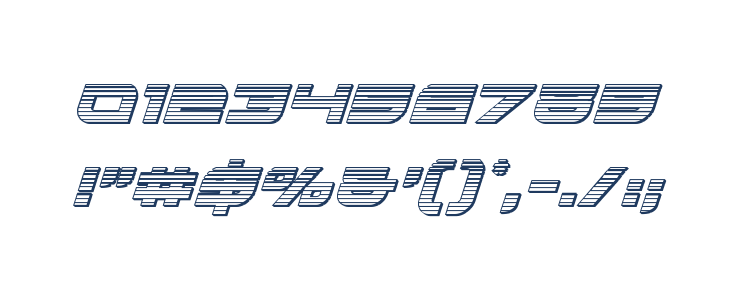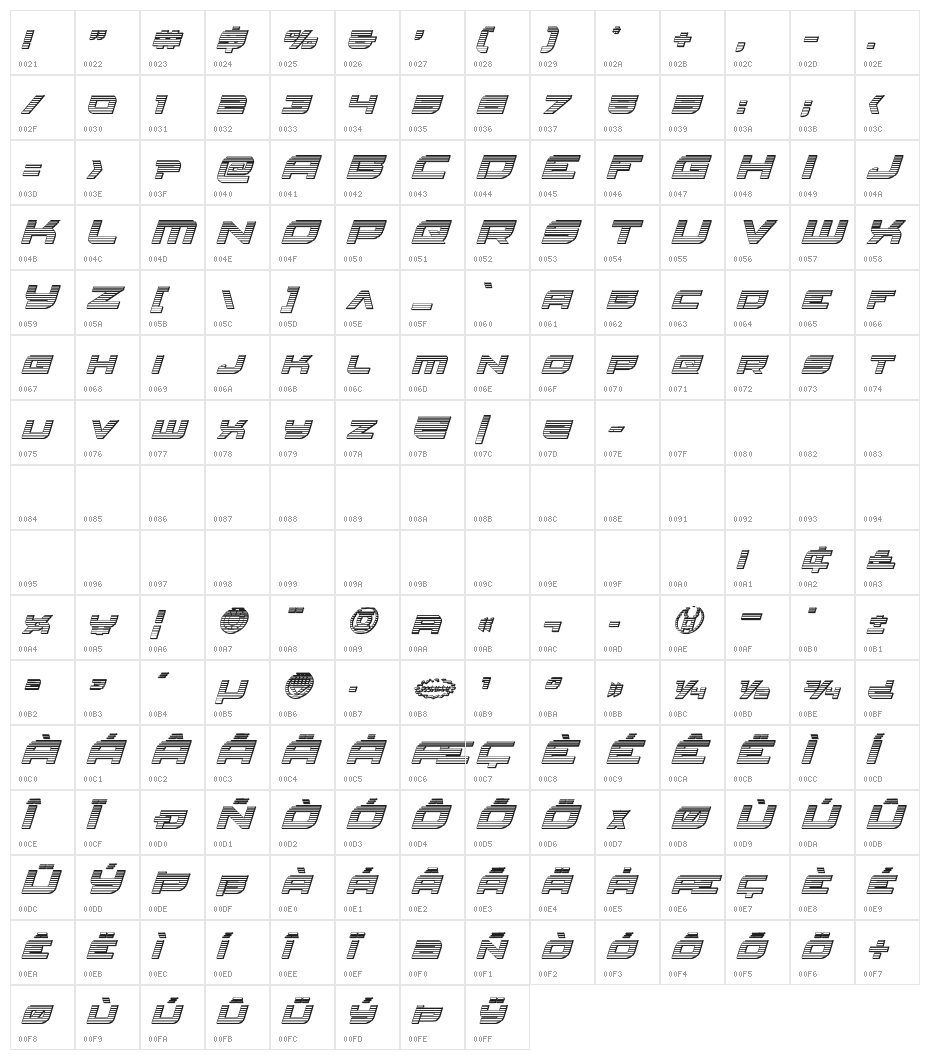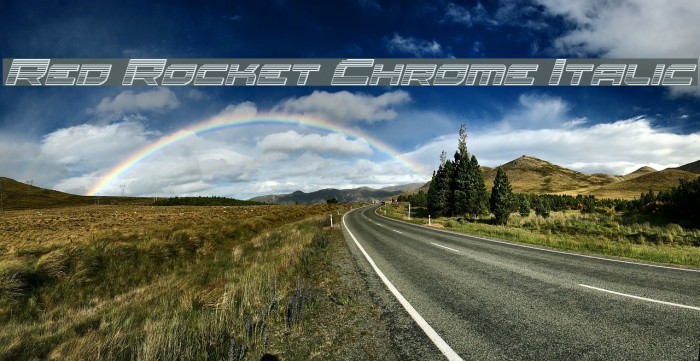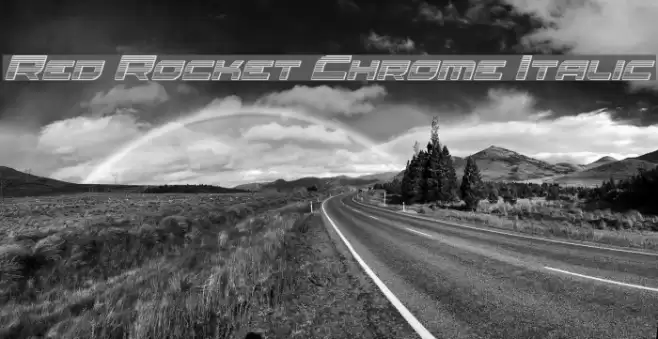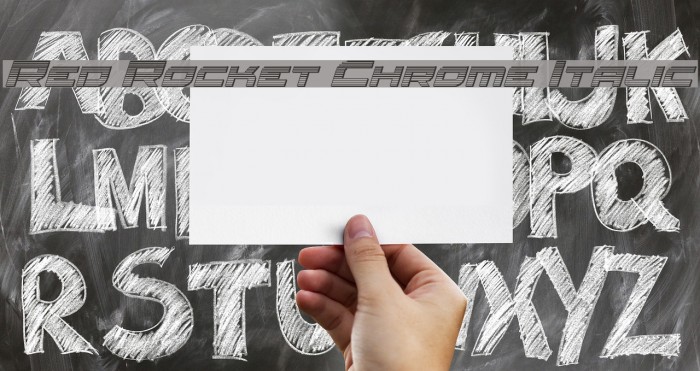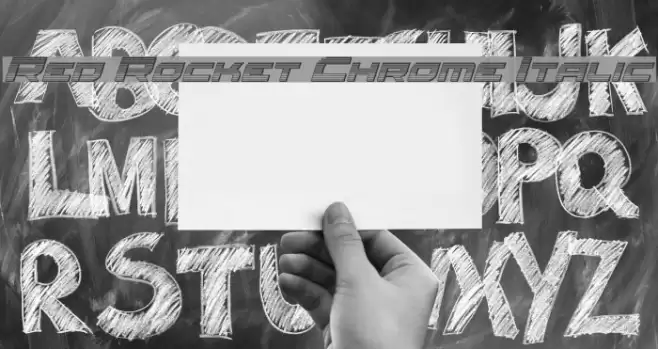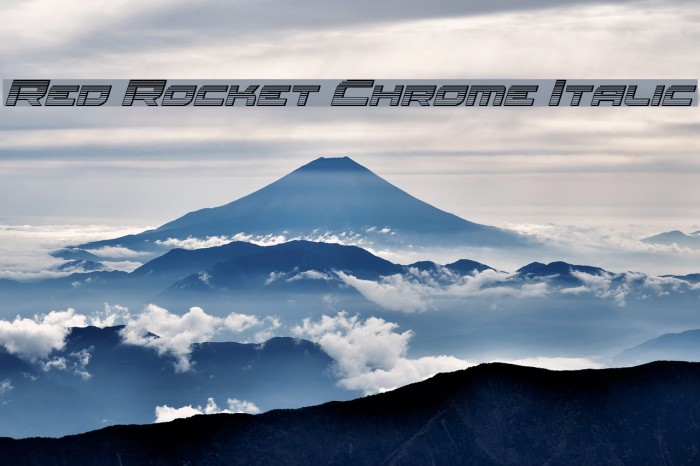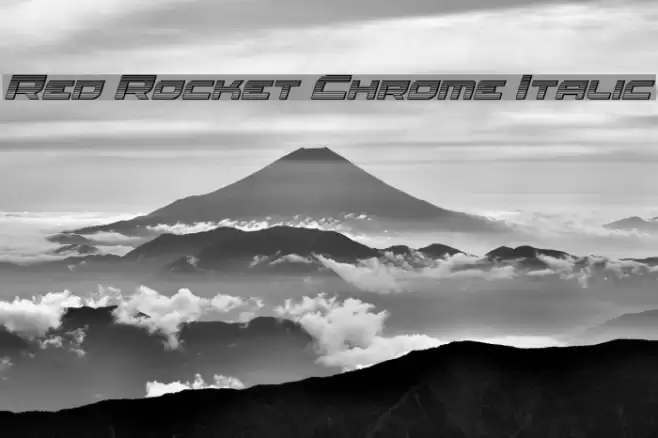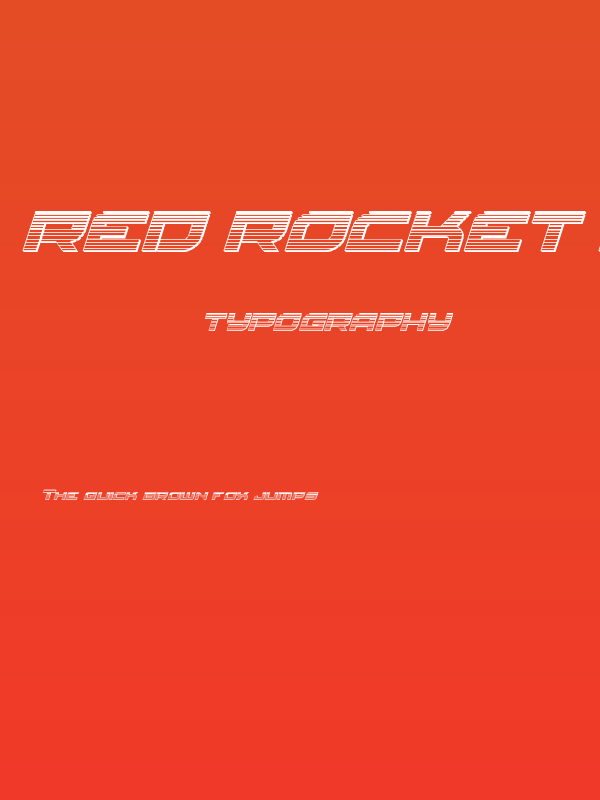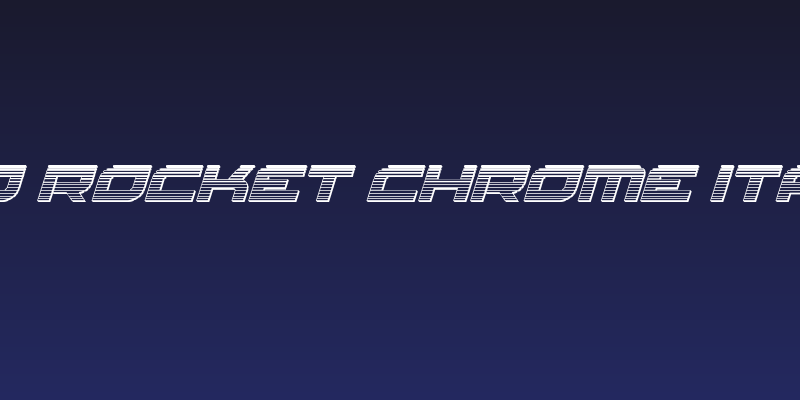
Red Rocket Chrome Italic Font
Red Rocket Chrome Italic Description
This font features a futuristic and dynamic design, characterized by its bold, italicized letterforms. Each character is constructed with multiple parallel lines, creating a striped effect that adds depth and movement. The font's geometric structure and angled lines give it a sleek, modern appearance, reminiscent of high-speed technology and innovation. The uppercase and lowercase letters maintain a consistent style, with uniform line thickness and spacing. Numbers and special characters are designed to match the overall aesthetic, ensuring a cohesive look across all text elements.